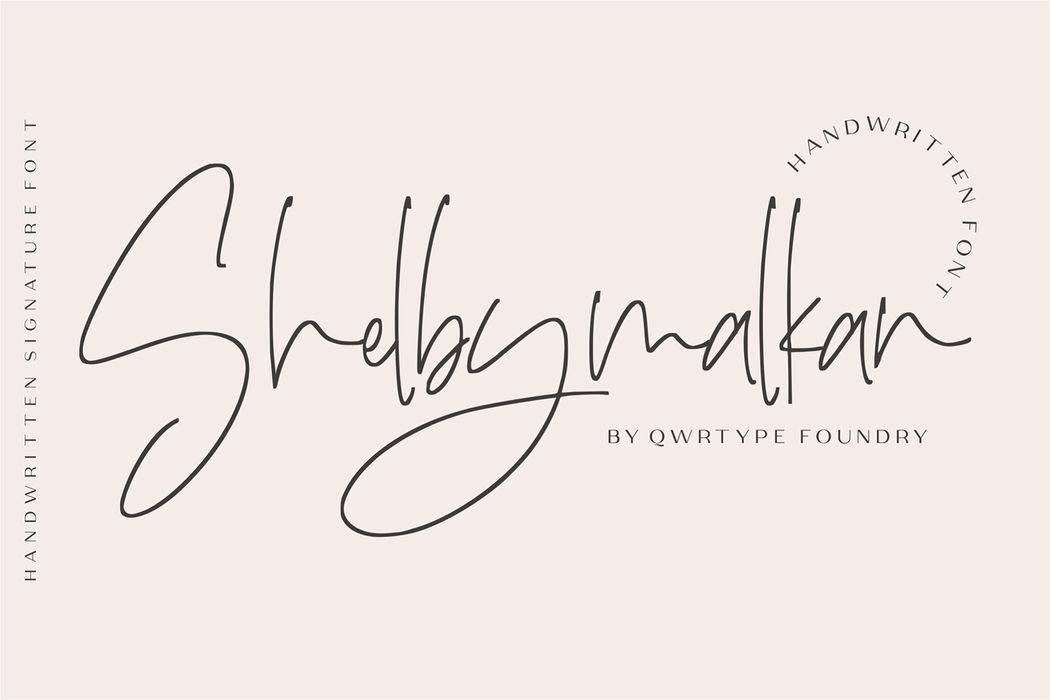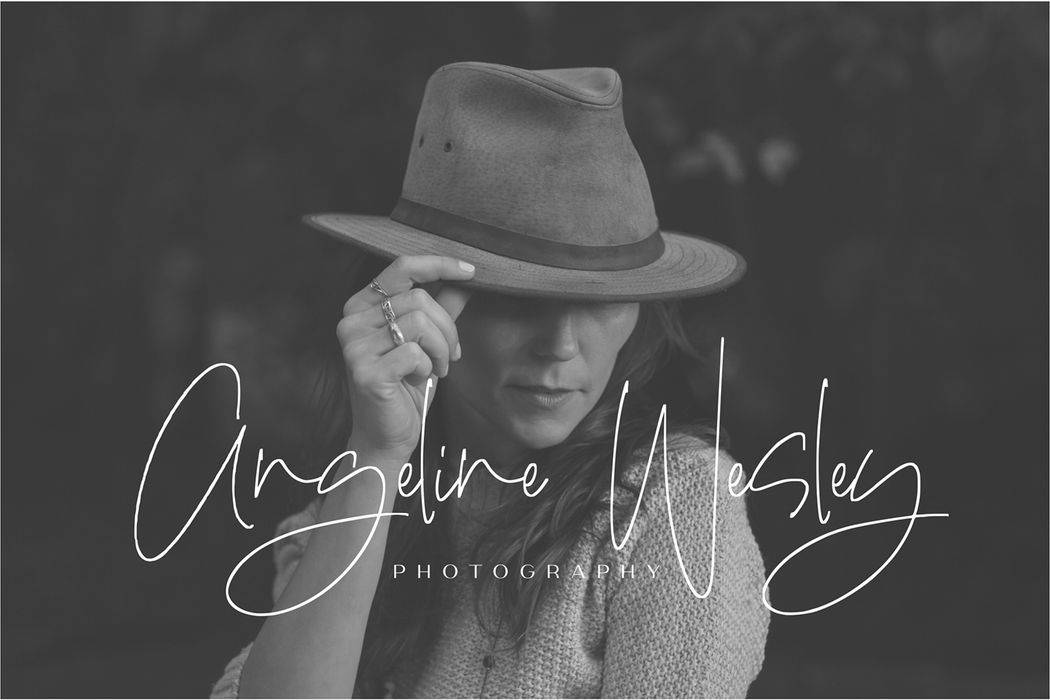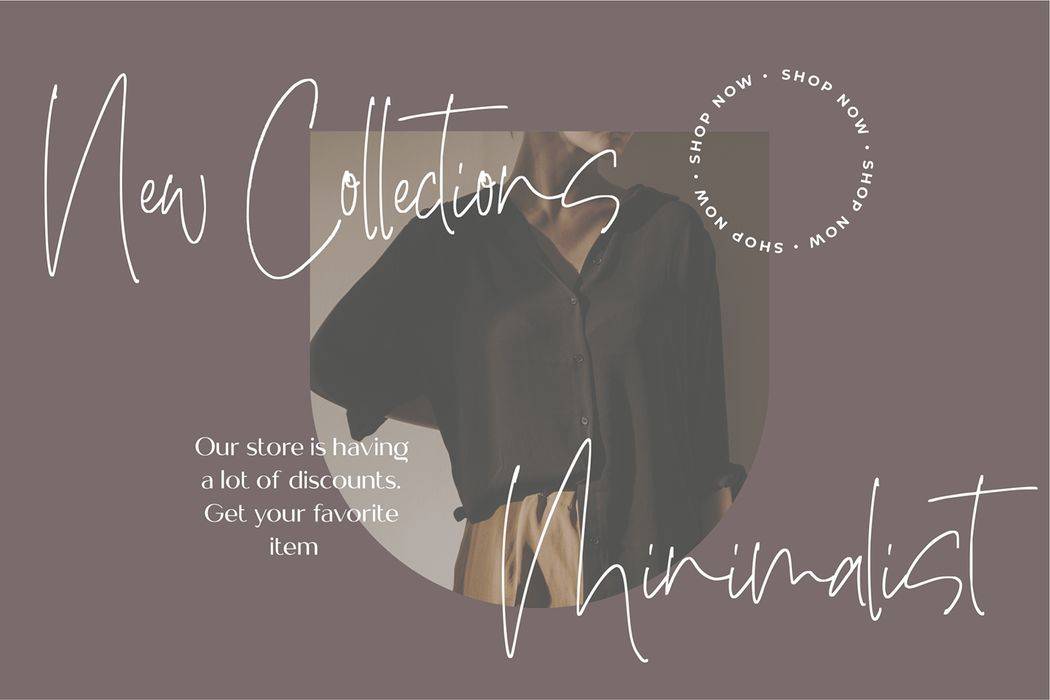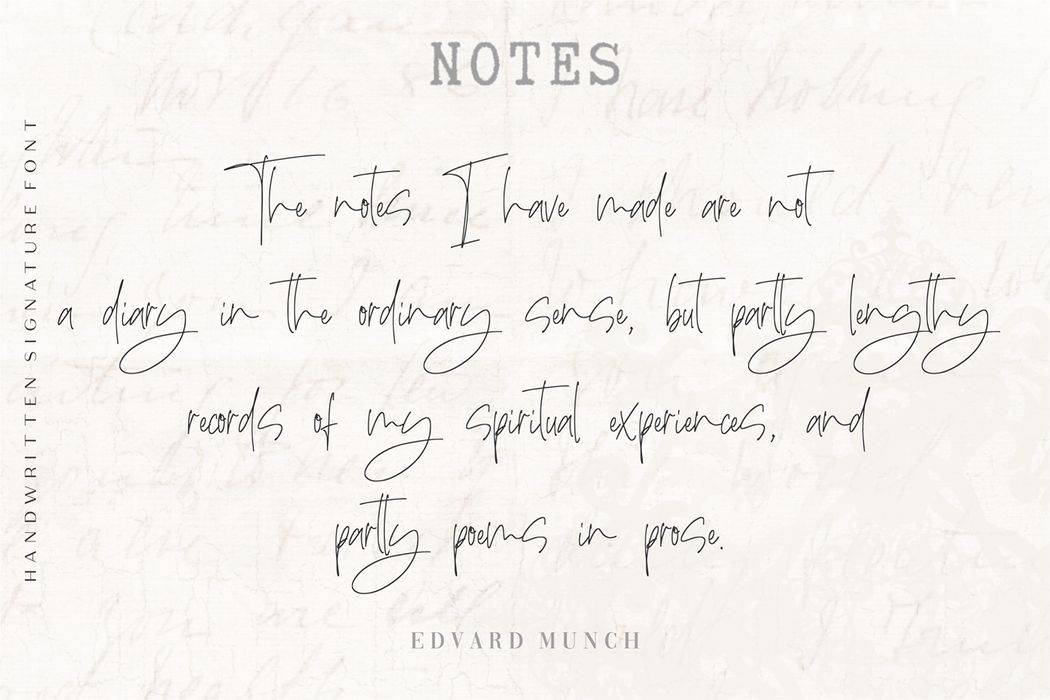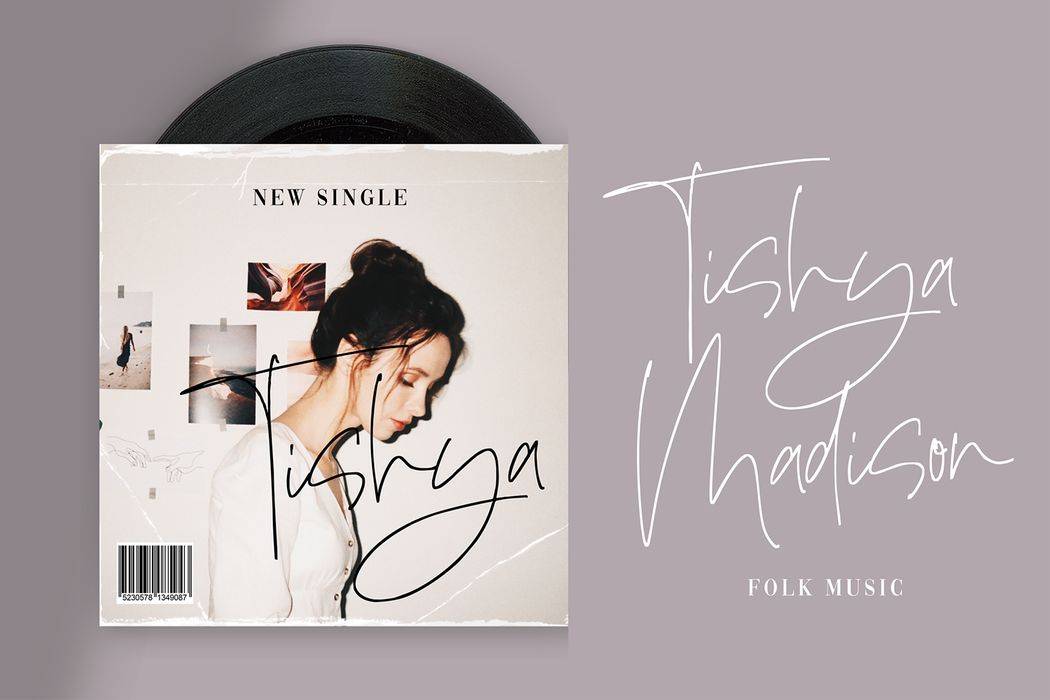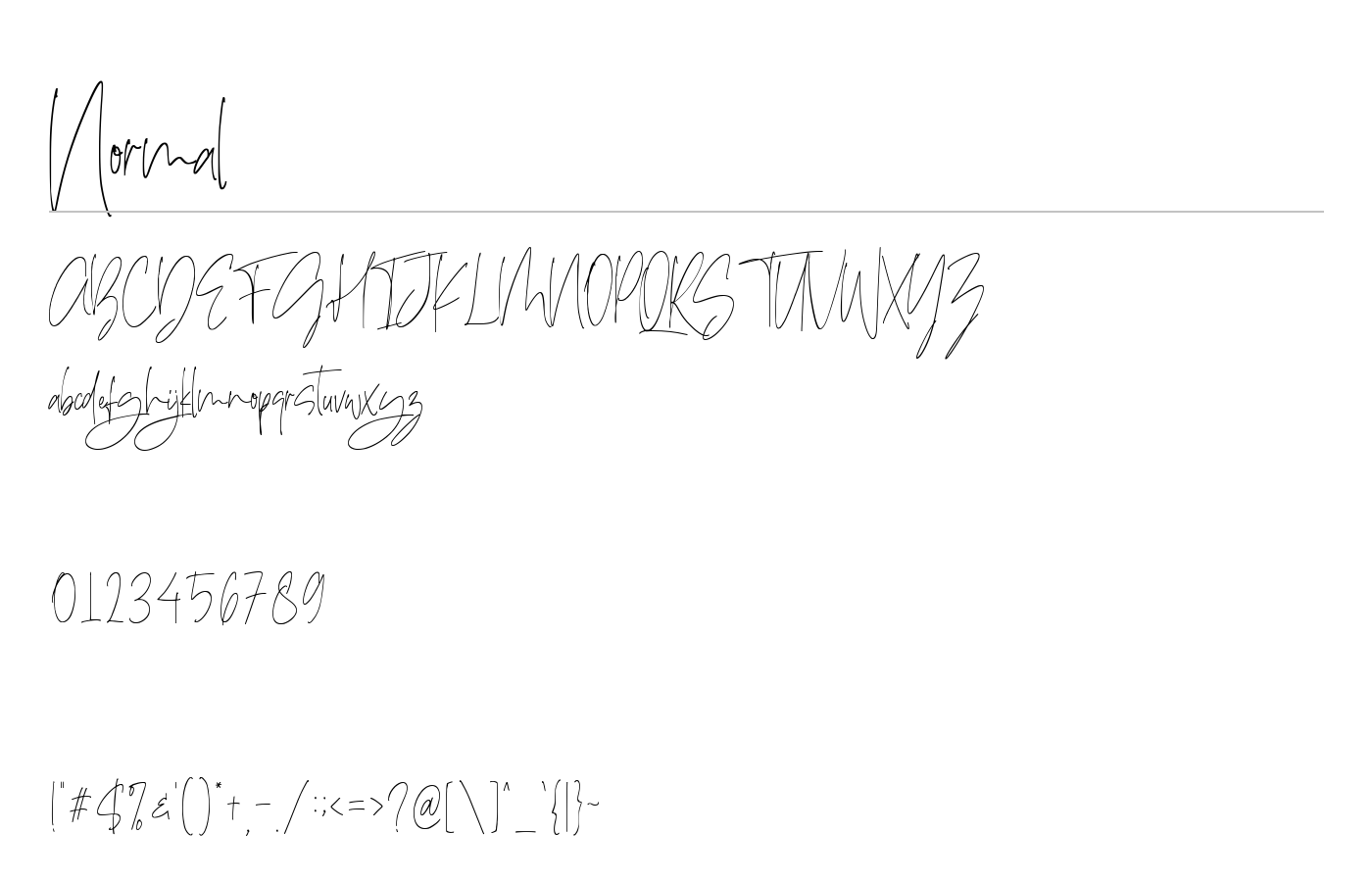
Shelbymalkan is a delicate, handwritten script font with a very thin weight and tall, narrow letterforms that give it an airy, elegant feel. Its whimsical, flowing strokes and casual style make it perfect for personal, creative projects like invitations, branding for lifestyle or fashion, and artistic headlines where a unique, intimate touch is desired. This font works best in large sizes to showcase its graceful details and organic charm.
Shelbymalkan Font
About Shelbymalkan Font